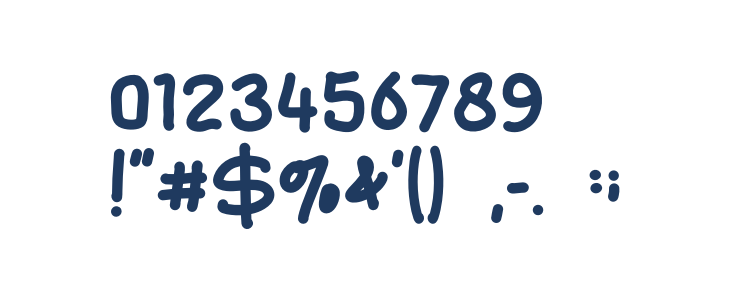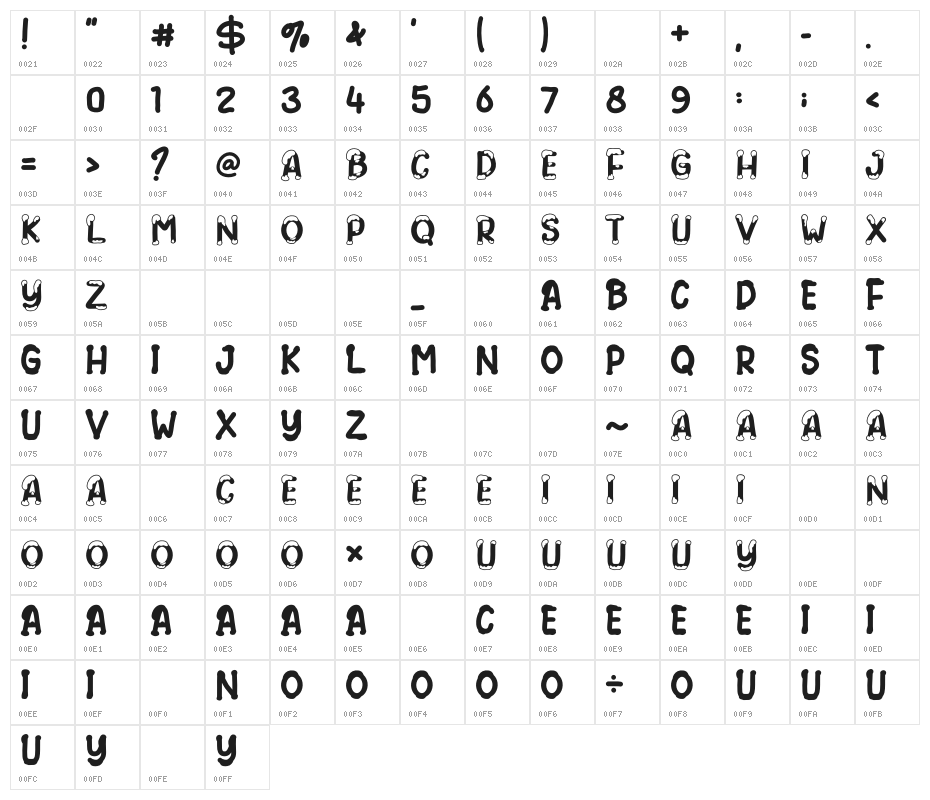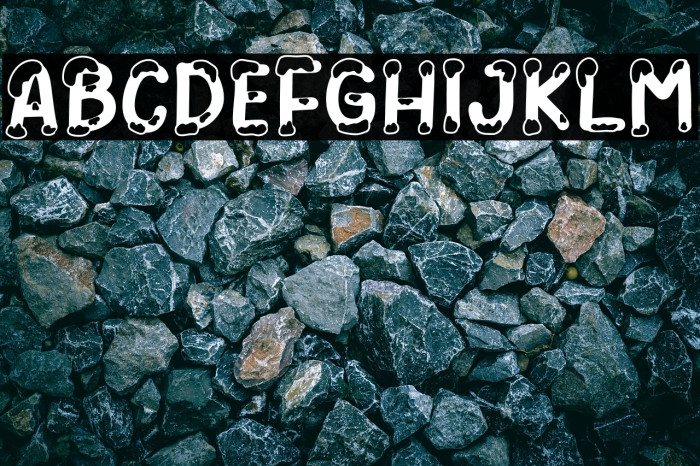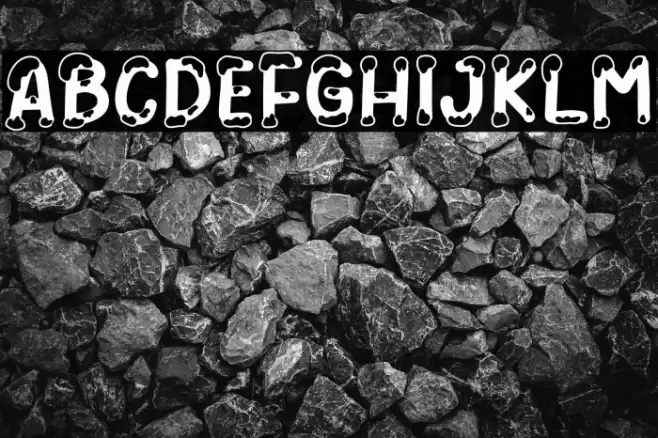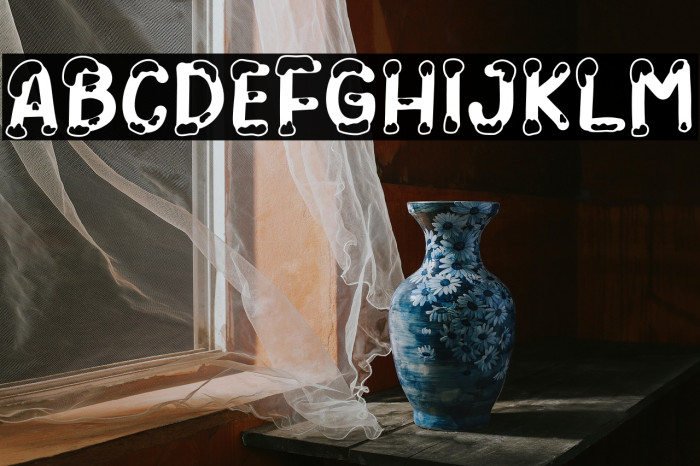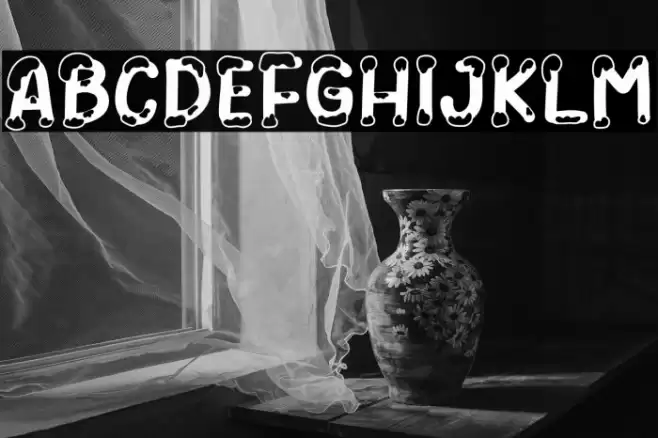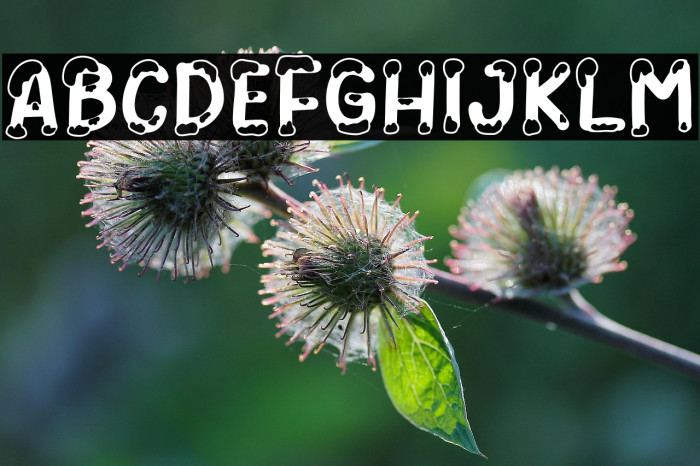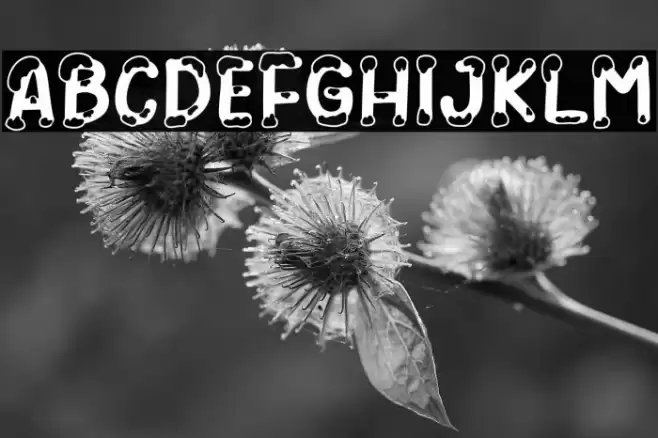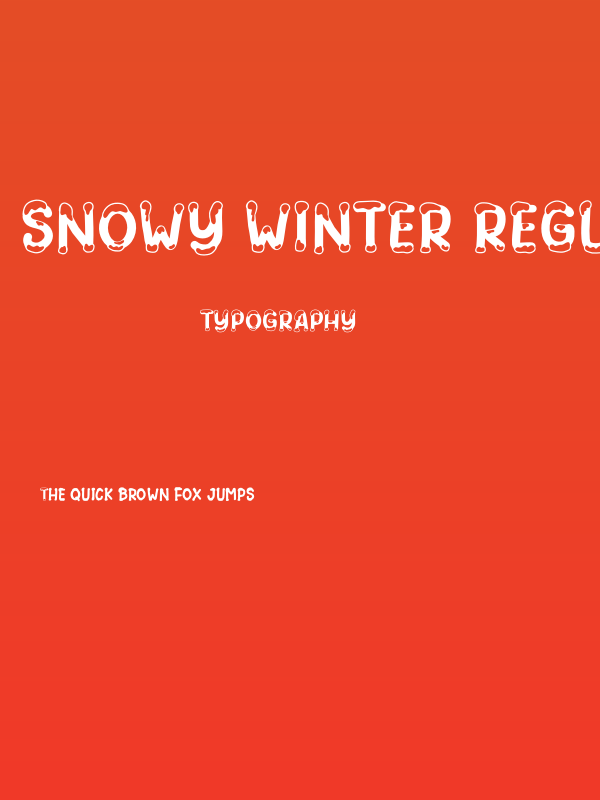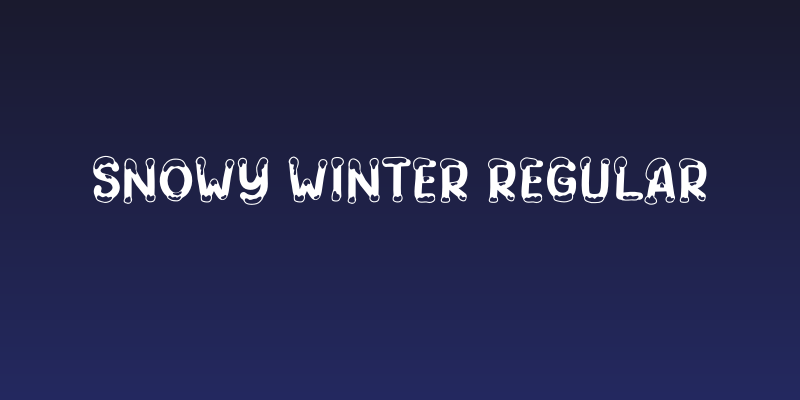
Snowy Winter Regular Font
Snowy Winter Regular Description
This playful and whimsical font features a snowy, winter-themed design with each character adorned with snow-like accents. The uppercase and lowercase letters have a rounded, bold appearance, creating a sense of fun and festivity. The numbers and special characters maintain this theme, making the font ideal for holiday-themed projects. The strokes are thick and consistent, providing a bold presence. The overall style is decorative, capturing the essence of a winter wonderland with its unique and eye-catching design.